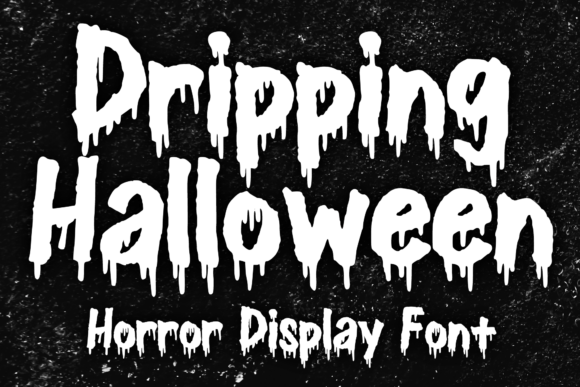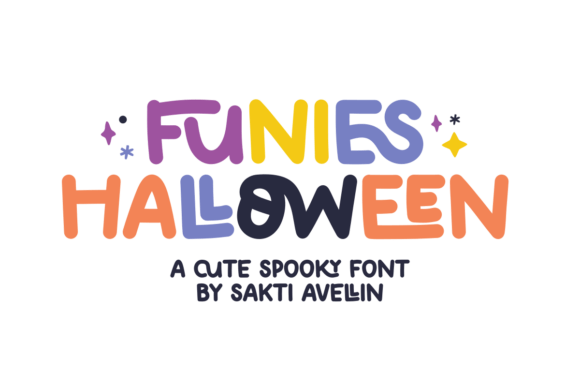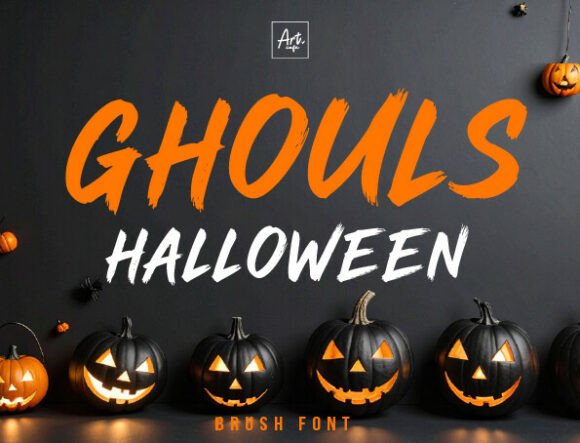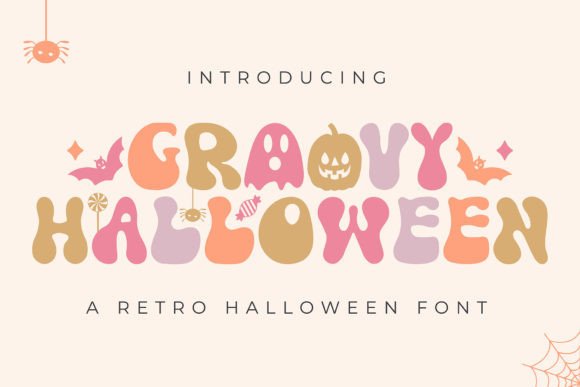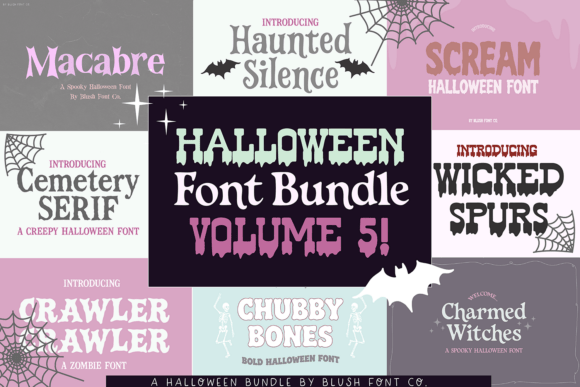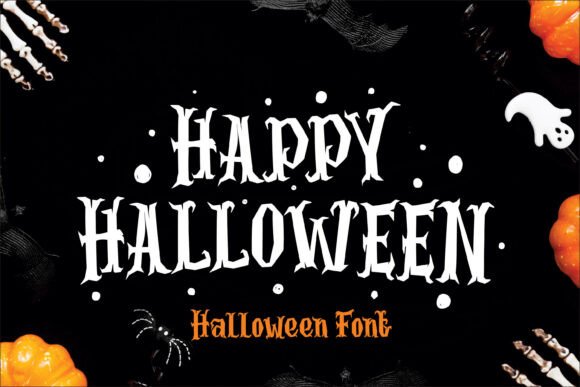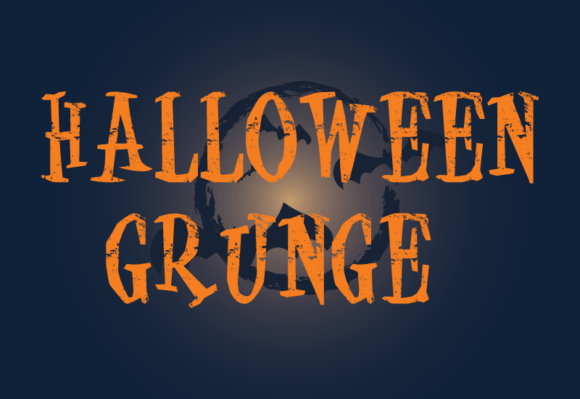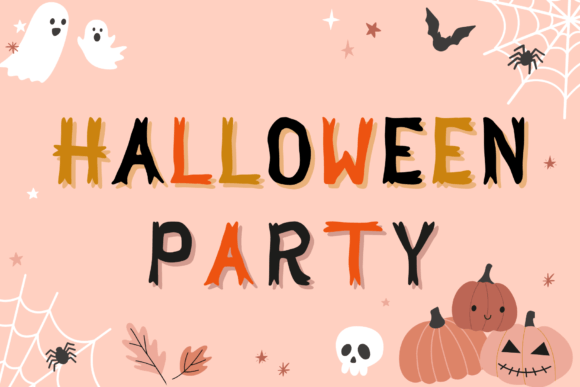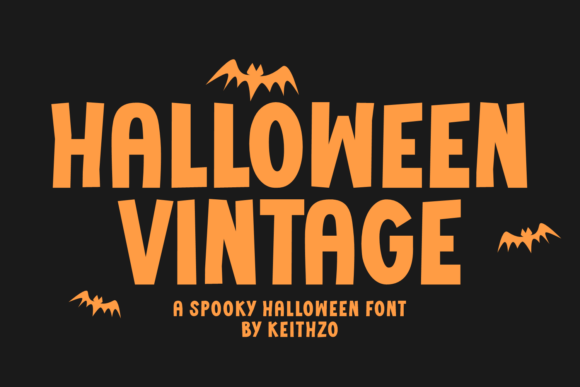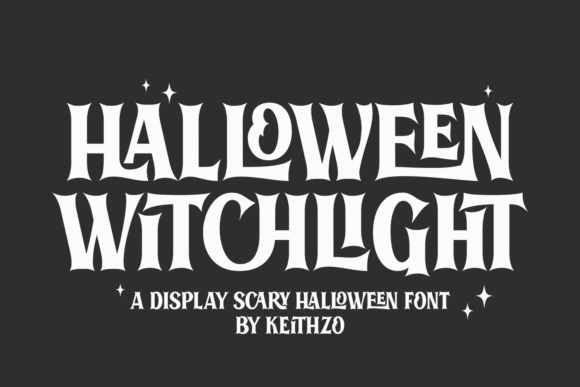
Spooky Halloween Fonts: 30 Best Bold & Horror Picks (2026)
spooky Halloween fonts are the fastest way to set a horror-movie tone before anyone reads a single word on your poster, invitation, or t-shirt design. Bold drips, gothic serifs, and distressed grunge textures all read as unmistakably eerie the moment they hit the page. Below are 30 spooky halloween fonts, from clean gothic display faces to full-on horror grunge, grouped so you can quickly find the level of “scary” your project actually needs.
Quick Picks
Best Overall Halloween (Gothic Display) – bold gothic letterforms with cobweb detail
Best for Logos Witches Halloween – all-caps display with ligature accents
Scariest Scream Halloween – melting, drip-style horror lettering
Best Value Bundle Halloween Bundle Volume 5 – 8 fonts for one price
Why Bold Fonts Read as Spooky
Horror typography leans on a few repeatable tricks: dripping or melting strokes that suggest blood or slime, distressed and grunge textures that feel worn or haunted, and gothic serifs with sharp, elongated terminals borrowed from old horror-movie posters. Halloween itself has roots that stretch back to ancient harvest and remembrance festivals, and you can read more about that history on Wikipedia’s Halloween overview if you want the full backstory behind the imagery these fonts borrow from.
When you’re picking spooky halloween fonts for a project, match the intensity to your audience: a family-friendly trunk-or-treat flyer wants playful drips and rounded shapes, while a haunted house poster can go full grunge and distress.
30 Spooky Halloween Fonts
Sorted from clean and elegant-spooky through to full horror grunge, so you can scan for the right intensity.
Scary Halloween Trio Halloween font
1. Scary Halloween Trio
Best for: Packaging & Labels, Posters & Flyers
A 3-in-1 set (sans, serif, and dingbats) that gives you a complete matching system for posters, cards, and packaging.
Halloween Bundle Volume 5 Halloween font
2. Halloween Bundle Volume 5
Best for: Posters & Flyers
8 creepy, quirky fonts in one bundle, from bone-chilling serif styles to zombie-inspired lettering, for invites, posters, and shirts.
Midnight Halloween font
3. Midnight Halloween
Best for: Party Invitations, Mugs & Tumblers
Tall, sharp characters with dramatic swirls, elegant enough for stylish party invitations and mugs.
Midnight Spellbook Halloween font
4. Midnight Spellbook
Best for: Halloween Decor
A hand-drawn illustrated display font where every capital hides black cats, moons, and cobwebs, best used large as instant artwork.
Spooky Halloween (Retro Display) Halloween font
5. Spooky Halloween (Retro Display)
Best for: Logos & Branding, Apparel & Merch
A groovy retro display font with alternates and ligatures, equally at home on branding, t-shirts, and greeting cards.
Magic Halloween font
6. Magic Halloween
Best for: Party Invitations, Mugs & Tumblers
Playful curly letterforms and bold shapes that stay easy to read, ideal for invitations and cozy Halloween mugs.
Monster Halloween (Handwritten) Halloween font
7. Monster Halloween (Handwritten)
Best for: Logos & Branding
A refined handwritten-style display font with tall, thin strokes for a cleaner take on spooky season branding.
Mystic Halloween font
8. Mystic Halloween
Best for: Book Covers, Party Decor
A vintage typeface inspired by Victorian typography and old spell books, great for gothic decor and book covers.
Halloween Witchparty Halloween font
9. Halloween Witchparty
Best for: Logos & Branding
A bold display paired with a monoline script duo, built for headlines, logos, and family-friendly Halloween designs.
Groovy Halloween (Retro Display) Halloween font
10. Groovy Halloween (Retro Display)
Best for: Logos & Branding, Book Covers
A spooky, stylish retro font for branding, book covers, and headlines with a playful 70s feel.
Scream Halloween font
11. Scream Halloween
Best for: Halloween Decor
A bold, melting drip font for haunted house flyers, horror movie titles, and spooky merch.
Funies Halloween font
12. Funies Halloween
Best for: Book Covers, Party Decor
A cute-spooky font with ligature accents on uppercase letters, ideal for kids’ book covers and party decorations.
Halloween (Gothic Display) Halloween font
13. Halloween (Gothic Display)
Best for: Apparel & Merch, Posters & Flyers
Bold, gothic-inspired letterforms with cobweb details and twisted serifs for posters, apparel, and embroidery.
Which spooky Halloween font works best for a logo?
Stick to a font that stays legible at small sizes. Witches Halloween and Halloween Cat both keep clean, readable shapes even with decorative detail, which makes them safer logo choices than the heaviest drip or grunge styles.